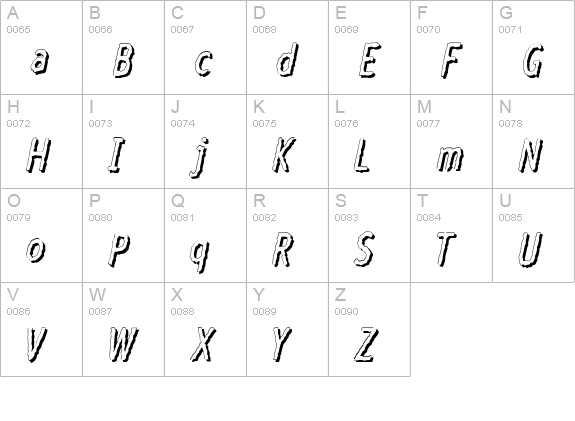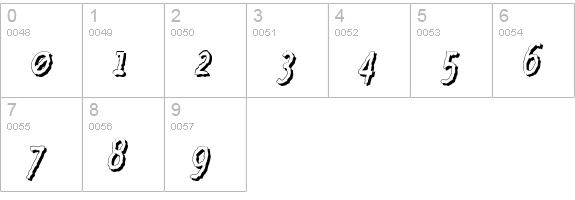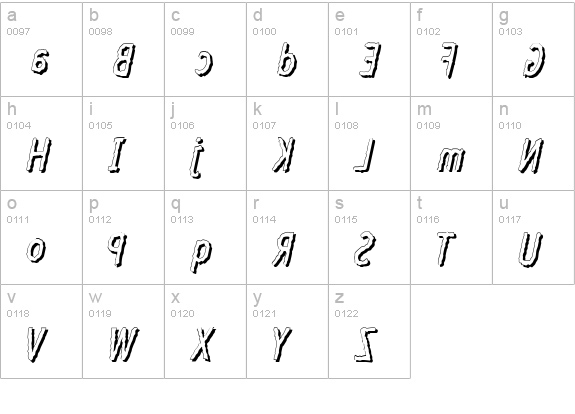
Crazy Cock Font Details
Crazy Cock font is a whimsical and playful typeface that exudes energy and fun. With its bold, exaggerated strokes and quirky design elements, this font is perfect for adding a touch of whimsy to any project. Whether you're working on a poster, greeting card, or social media graphic, Crazy Cock font is sure to make a bold statement. What's even better is that Crazy Cock font is available for free download at FontsMarket.com. So go ahead and unleash your creativity with this unique and eye-catching typeface. Let Crazy Cock font bring a touch of madness and excitement to your designs today!